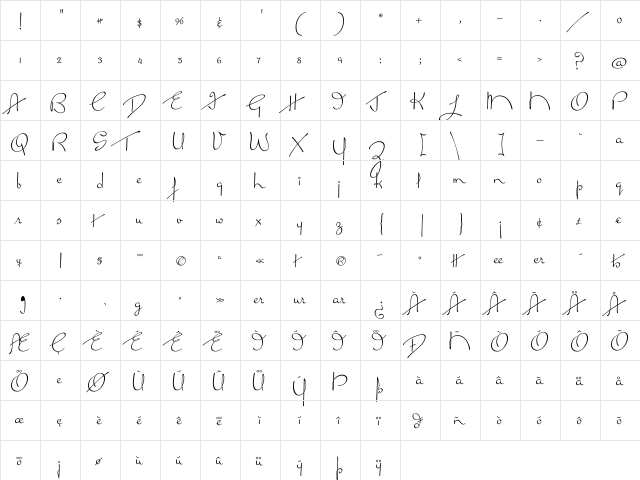
Miss Lankfort Regular
| Foundry | SUDTIPOS. Expanded and digitized from the Bluemlein Script collection by Alejandro Paul |
Design Context for Miss Lankfort Typeface
Miss Lankfort is a composed and adaptable typeface that performs quietly and consistently across a wide range of design contexts.